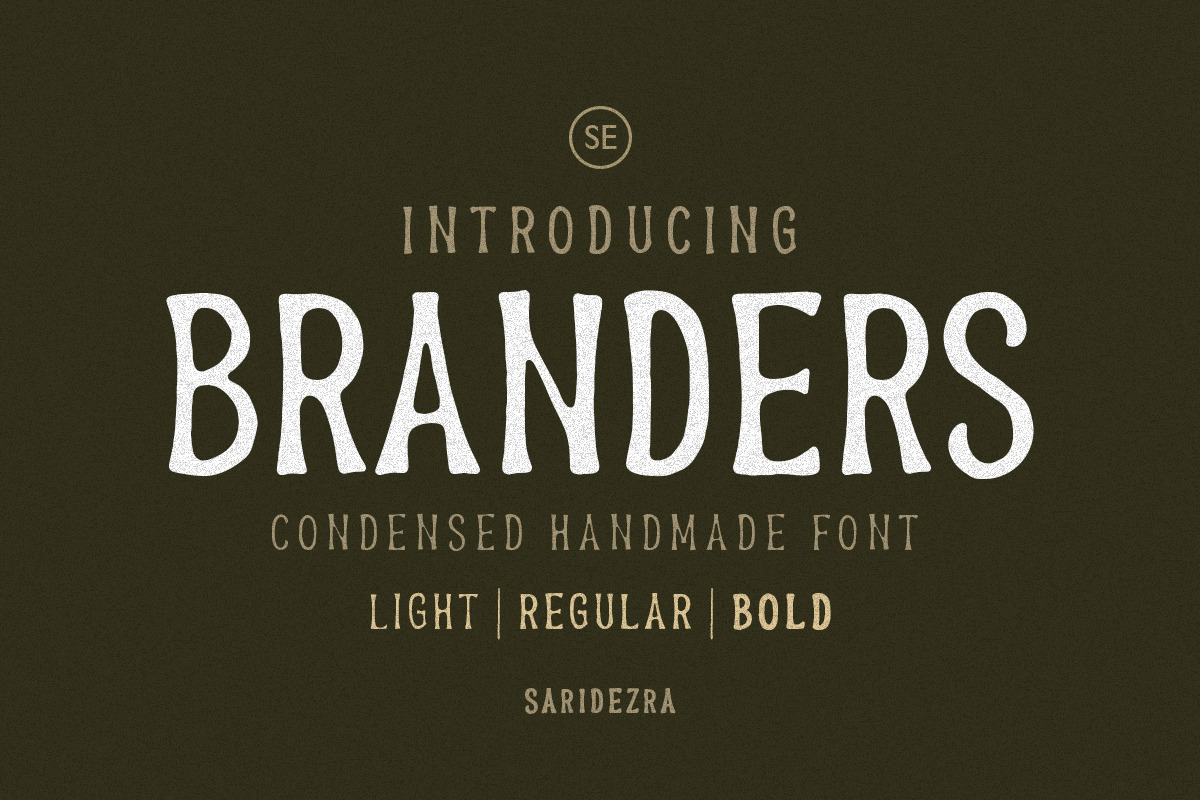
Branders - Condensed Handmade Font
Branders is a font family that contains a light, regular and bold style. You can use these fonts for various purposes such as making an emblem logo, for promotions, or other purposes that will make your design more real as handmade. This font also support multi language.